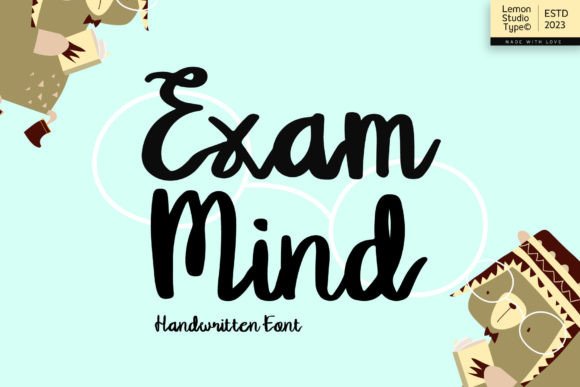
Dive into the mesmerizing world of Exam Mind Font, a captivating handwritten script font that breathes life into your designs. Crafted with meticulous care by the talented WildaKhairunnisa, Exam Mind exudes a soft and delicate touch that will leave you spellbound. Its unique brushstrokes create an ethereal feel, perfect for imbuing your projects with a sense of wonder and whimsy.
Adorn your book covers, films, mockups, or labels with Exam Mind Font and instantly elevate your designs to new heights. This font is a true treasure for creative souls, beckoning you to express your imagination and create masterpieces that will capサイズ�ture hearts and turn heads. Its gentle curves and elegant flourishes add a touch of charm and personality to any project, making it a versatile choice for a wide range of creative endeavors.
Imagine the impact of Exam Mind Font gracing the covers of your books, each title transformed into a captivating work of art. Your words will dance off the page, enticing readers to delve into your stories and be transported to extraordinary realms. With Exam Mind Font, your book covers will become a true testament to your creativity, leaving a lasting impression on all who see them.
Delve into the world of filmmaking and create titles that will capti鞮ate audiences from the very start. Exam Mind Font will add a touch of cinematic brilliance to your films, leaving viewers spellbound and eager for more. Its soft brushstrokes will paint a picture of wonder and imagination, transporting audiences to distant lands and untold stories. With Exam Mind Font, your titles will become unforgettable, etched into the memories of cinephiles everywhere.
Unleash your inner designer and craft mockups that will astound and inspire. Exam Mind Font will lend its graceful presence to your mockups, imbuing them with a sense of authenticity and charm. Whether you're showcasing your latest product designs or creating eye-catching marketing materials, Exam Mind Font will elevate your mockups to new levels of professionalism. Prepare to be blown away by the stunning results as your designs come to life with Exam Mind Font.
Step into the realm of product labels and transform your ordinary packaging into works of art. Exam Mind Font will add a touch of whimsy and allure to your labels, making your products stand out from the crowd. With its delicate curves and charming flourishes, Exam Mind Font will capti鞦ate consumers and entice them to pick up your products. Watch as your sales skyrocke碶t and your brand recognition reaches new heights, all thanks to the transformative power of Exam Mind Font.